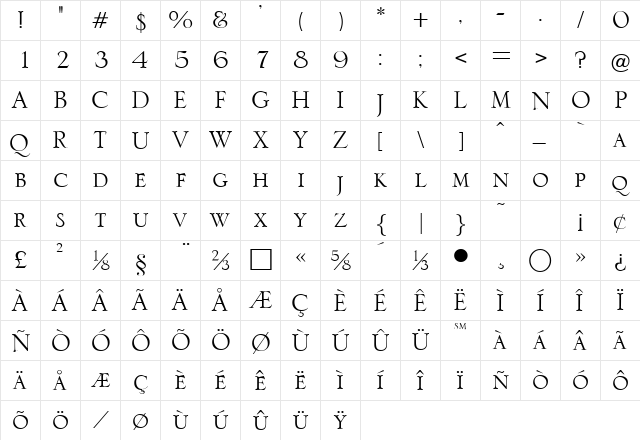
Sentian Regular
Design Context for Sentian Typeface
Sentian offers clean, dependable letterforms without strong stylistic allegiance, making it a practical choice for designers who need flexibility.